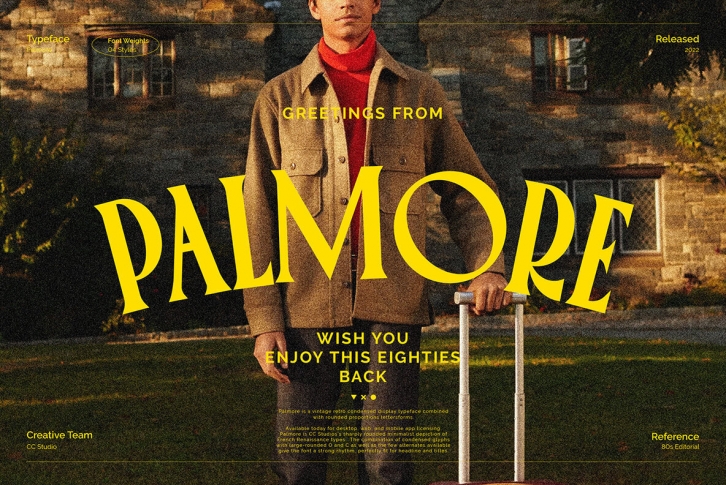
This font is perfect for anyone who wants to add some vintage flair and retro vibes into their work. With Palmore, you get all of the best qualities from both fonts: condensed shapes that give it a strong rhythm as well rounded letter forms like O or C with large alternate glyphs.
- Stylistic Alternates & Ligatures